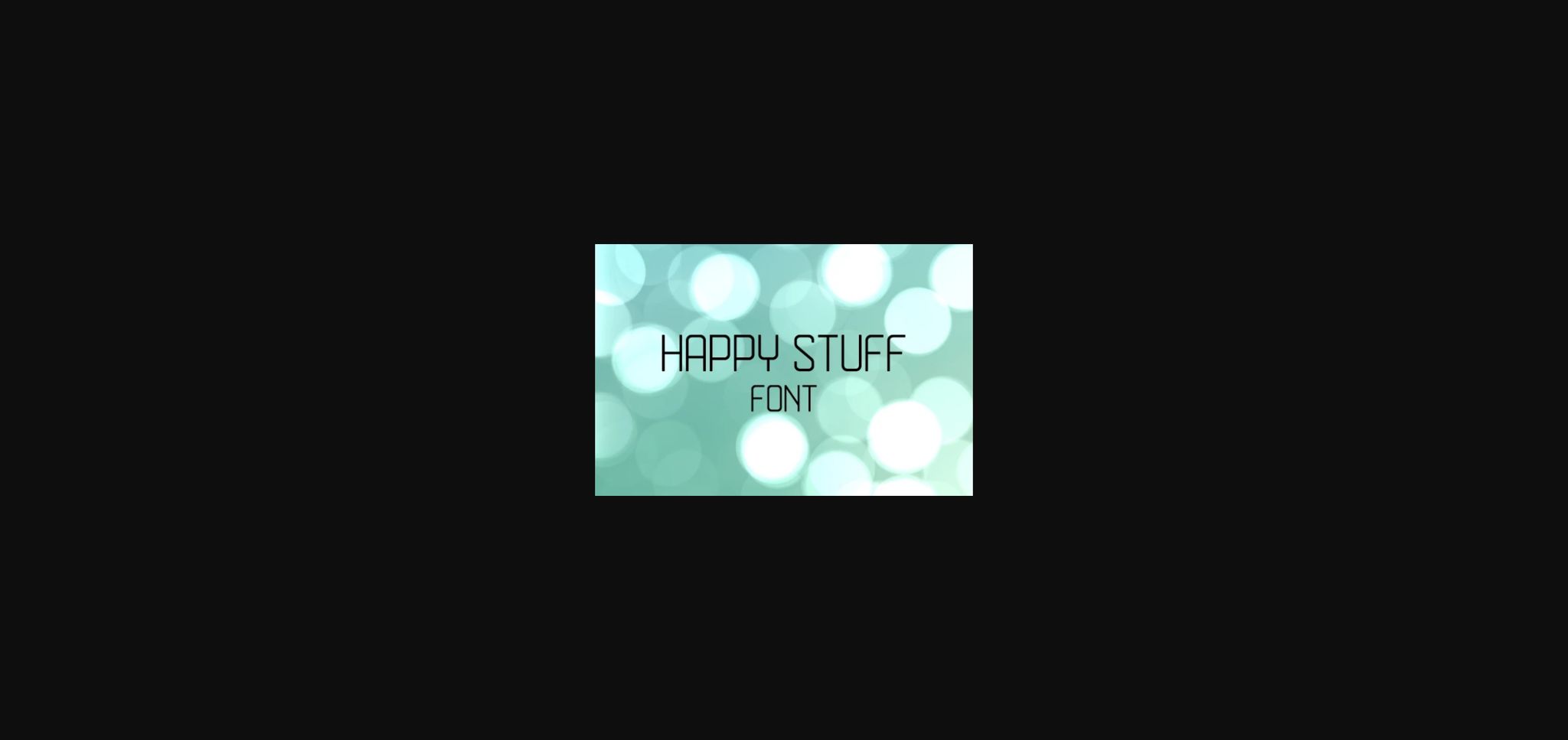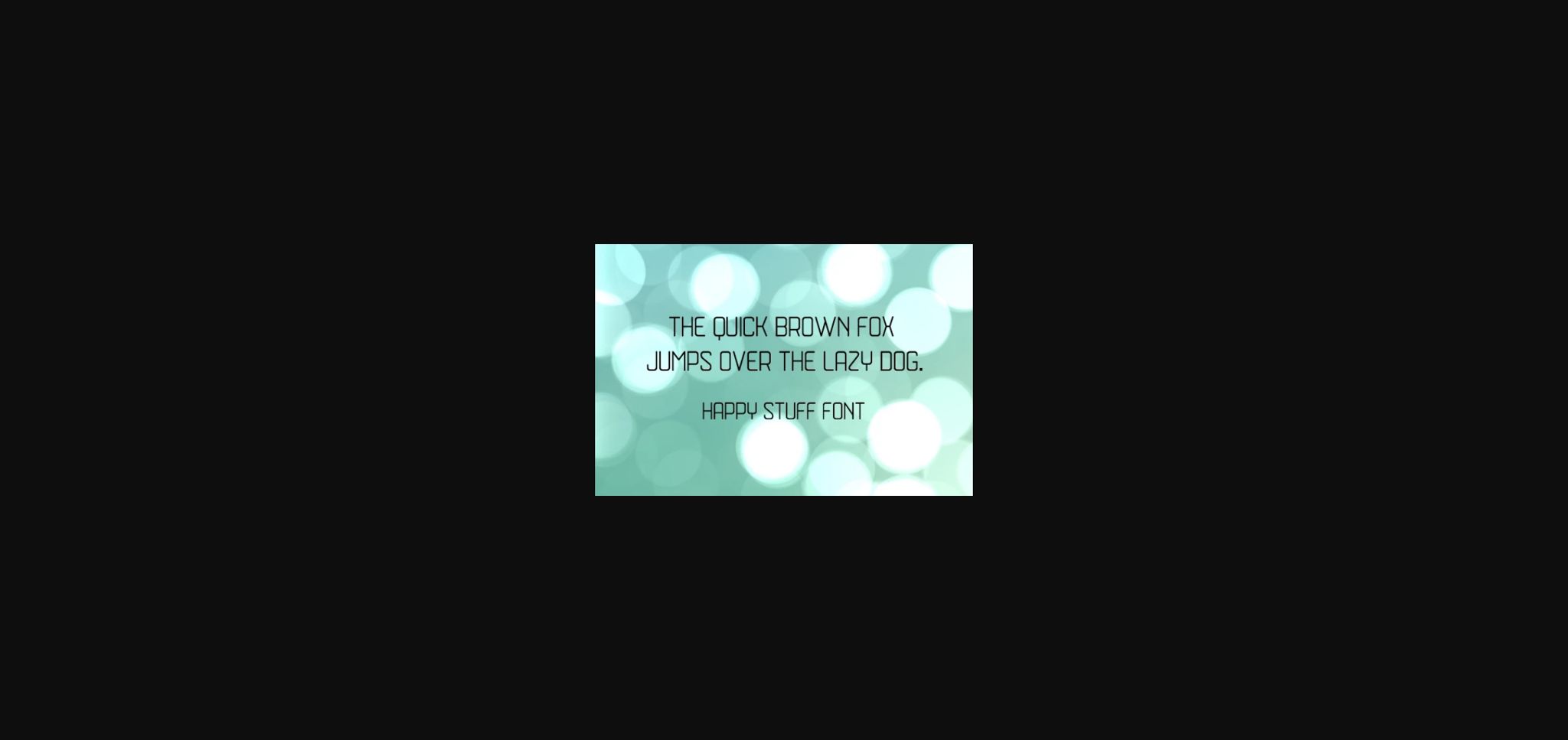
About Happy Stuff Font
Happy Stuff is a modern sans serif font. It will complement any design need perfectly with its perfectly balanced mix of the smooth and sharp!